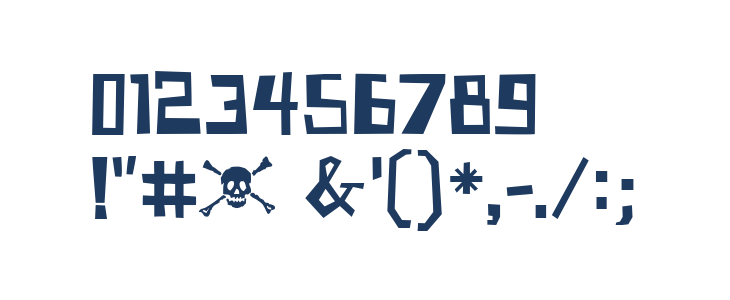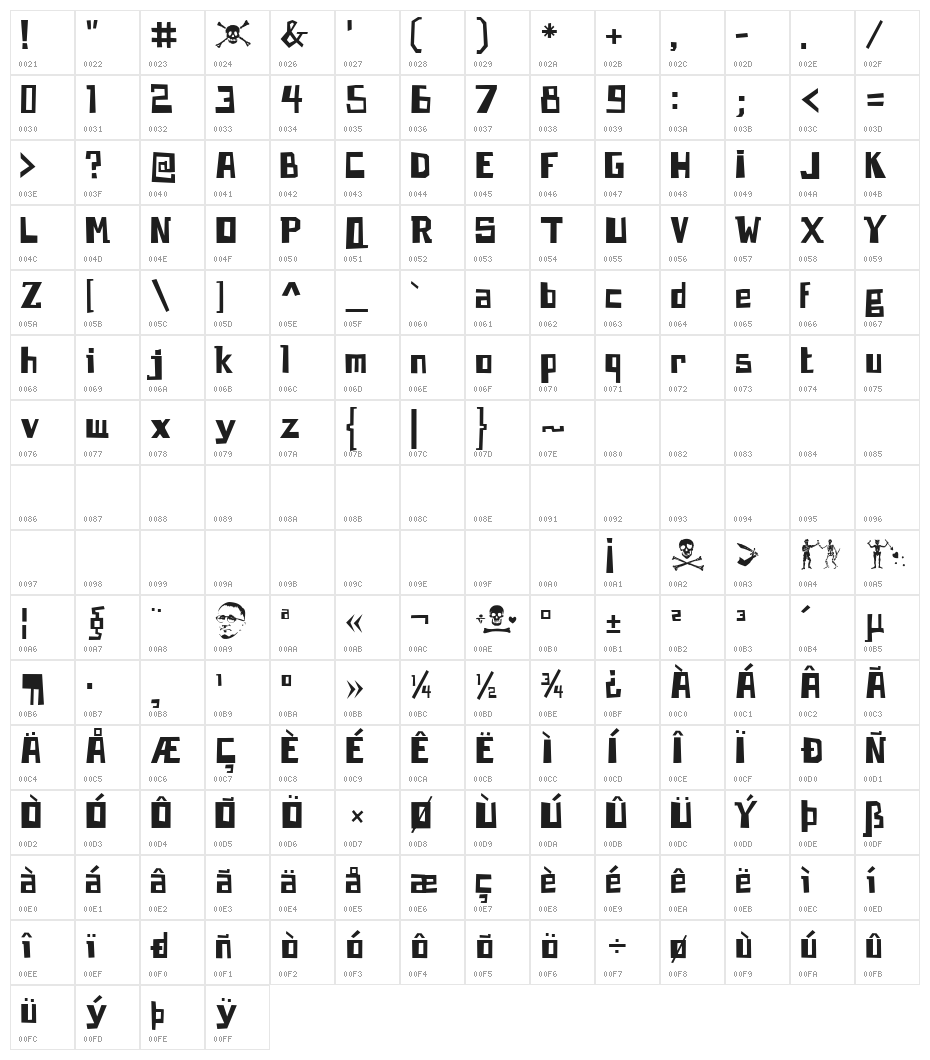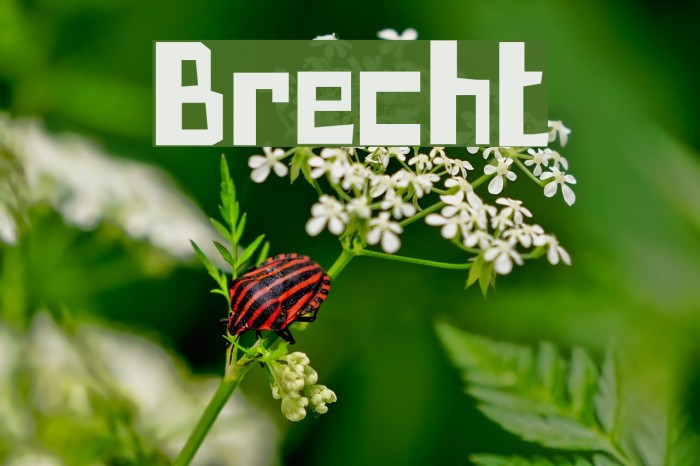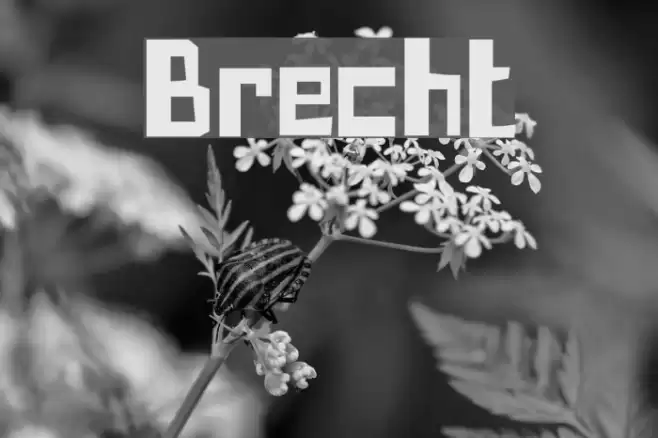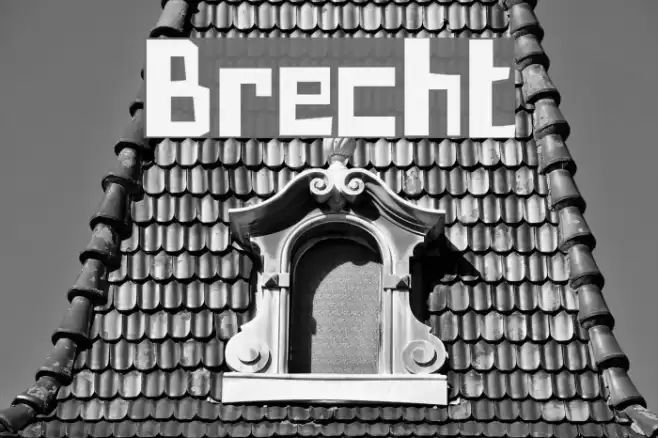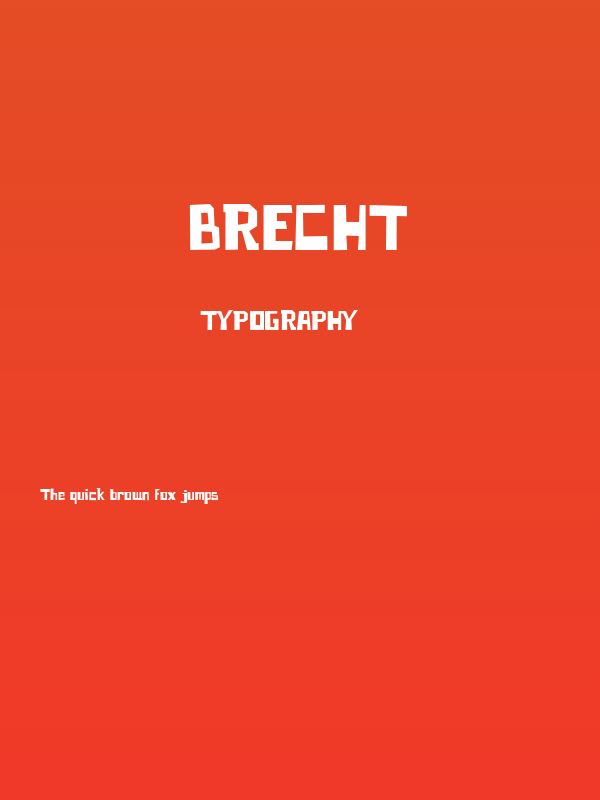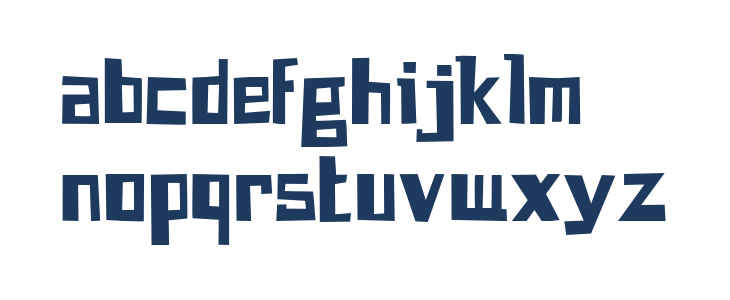
Brecht Font
Brecht Description
This font features a bold and edgy design with sharp angles and a geometric structure. The uppercase letters are distinct with a blocky appearance, while the lowercase letters maintain a consistent style, offering a unique and modern twist. The numerals are equally bold, ensuring visibility and impact. Special characters are creatively designed, adding to the font's overall distinctive look. This font is perfect for projects that require a strong visual presence and a contemporary feel.
| Proposed Projects | Ideal for posters, album covers, branding, and any project needing a bold statement. |